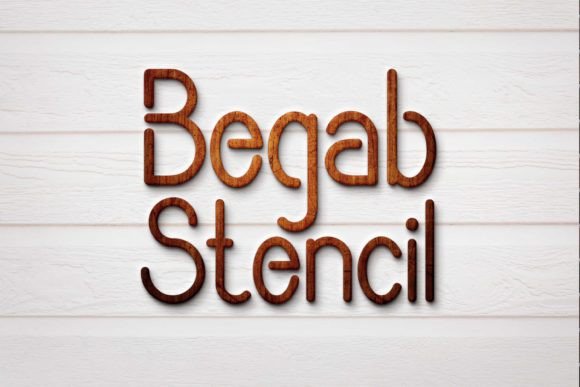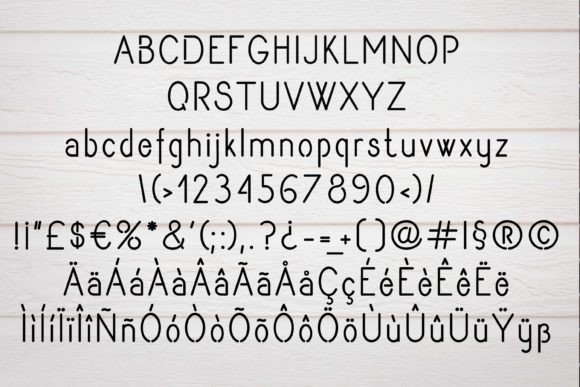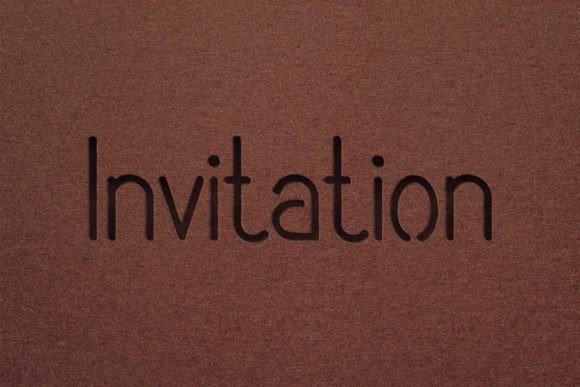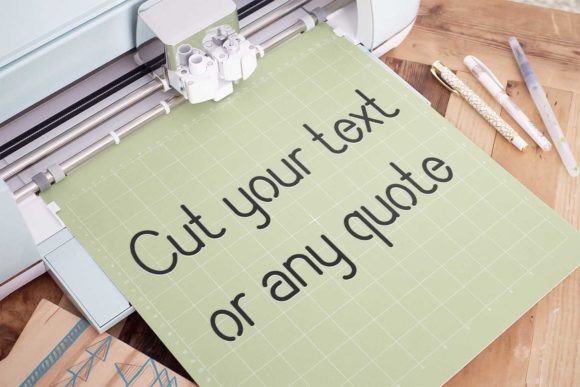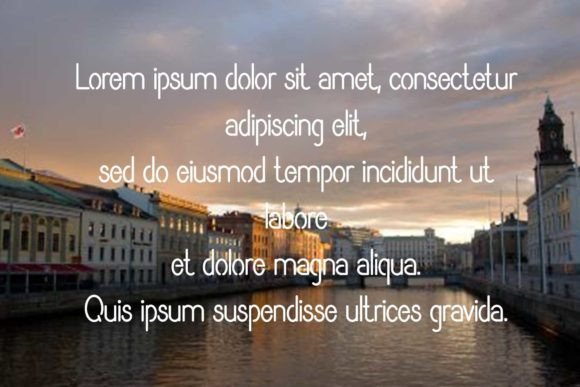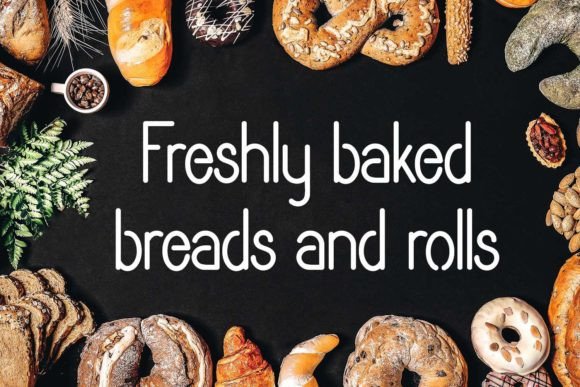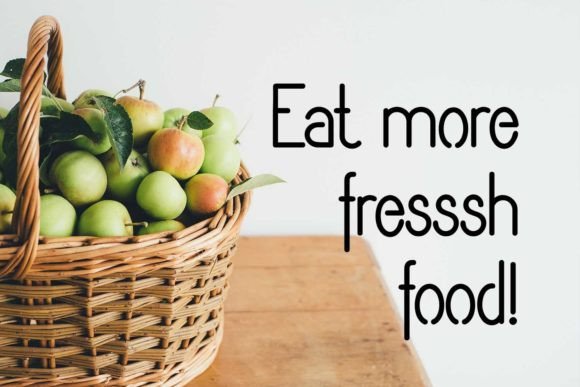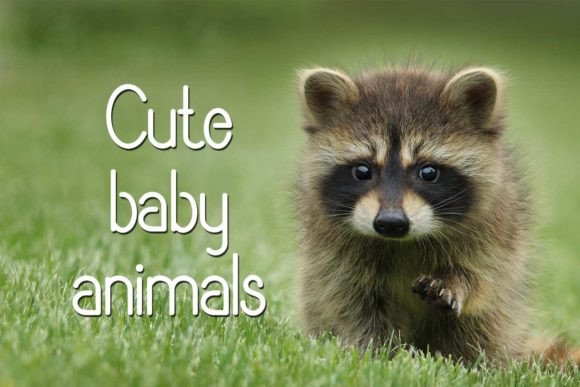
Begab Stencil is a carefully crafted handwritten font that will be a wonderful asset to your font library. Whether you’re using it for crafts, digital design, presentations, or making greeting cards, this font has the potential to become your favorite go-to font, no matter the occasion!
Begab Stencil Font